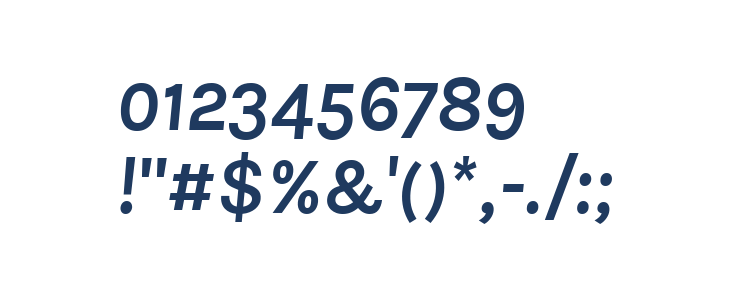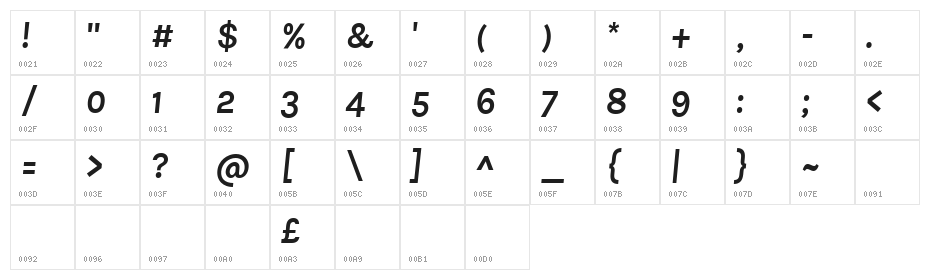
Karla Tamil Bold Inclined Font
Karla Tamil Bold Inclined Description
This font features a bold and inclined style, offering a modern and clean appearance. The characters are well-defined with a slight slant, giving a dynamic and forward-moving feel. The numerals and special characters maintain the same boldness, ensuring consistency across all elements. The design is straightforward, making it suitable for various applications where clarity and impact are essential.
| Proposed Projects | Ideal for headlines, posters, branding materials, and digital content where a strong and modern presence is required. |